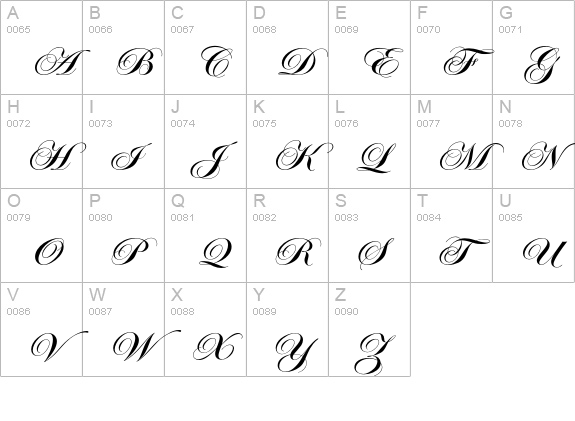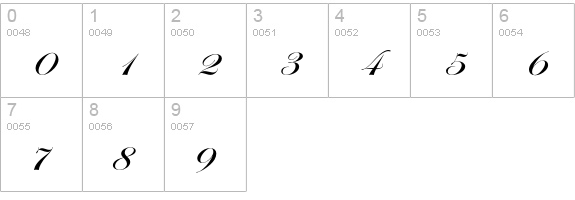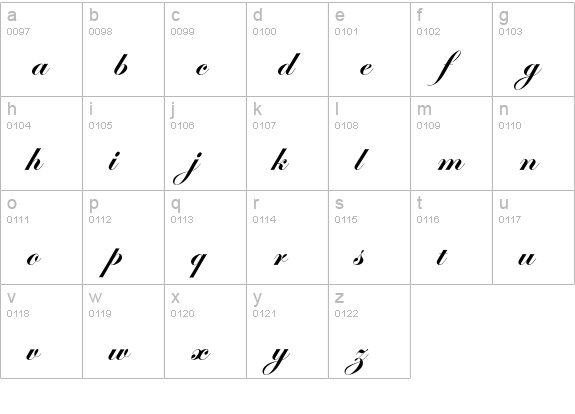
EdwardianScriptEF-Bold is a strong, high-contrast variant in the EdwardianScriptEF typeface family \xE2\x80\x94 well suited to headlines, attention-grabbing titles, and strong calls-to-action.
The EdwardianScriptEF-Bold font is a stunning typeface that exudes elegance and sophistication. Inspired by the ornate handwriting style of the Edwardian era, this font offers a delightful blend of flowing curves and intricate details. With its bold weight, this font commands attention and adds a touch of luxury to any design project. Whether you're creating wedding invitations, elegant logos, or sophisticated branding materials, the EdwardianScriptEF-Bold font is sure to make a lasting impression. What makes this font even more remarkable is that it is available for free download at FontsMarket.com. This means that you can easily access and use this beautiful font to elevate your designs without any cost. It's a fantastic opportunity to add a touch of timeless beauty to your creations without breaking the bank. The EdwardianScriptEF-Bold font offers a wide range of characters, including uppercase and lowercase letters, numerals, punctuation marks, and special symbols. Its versatility allows you to create captivating designs that capture the essence of the Edwardian era effortlessly. Whether you're a professional designer or a creative enthusiast, the EdwardianScriptEF-Bold font is a must-have in your font library. Its impeccable craftsmanship and stunning aesthetics will add a touch of sophistication to any project. Download it for free at FontsMarket.com and unleash your creativity with this exquisite typeface.